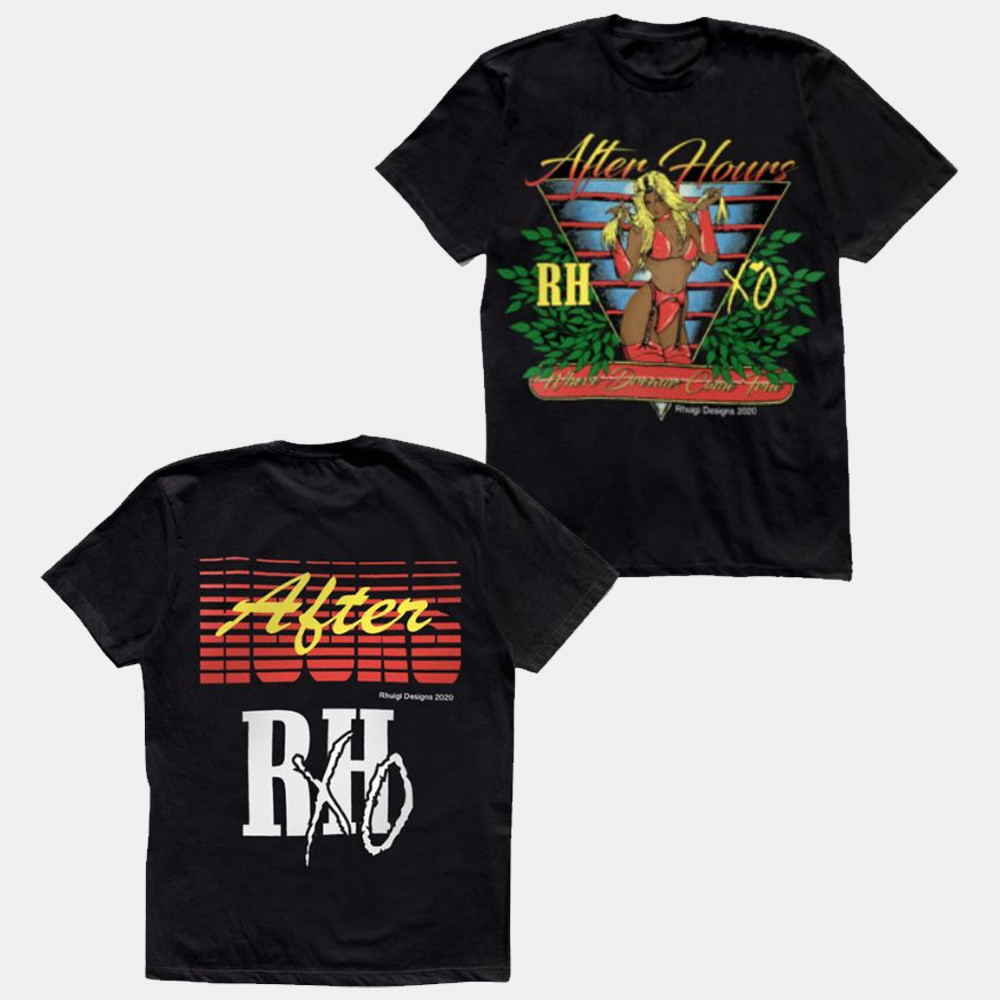
The Weeknd After Hours Til Dawn Tour Merch Shirt The Weeknd X Rhuigi Official merchandise designs for the weeknd's global stadium tour, "after hours till dawn.". Hurry up tomorrow is the sixth studio album by the weeknd, released on january 31, 2025. it is the final installment of a trilogy following his previous two studio albums, after hours (2020) and dawn fm (2022). the sans serif used for the album title is similar to impact or opti ignite. Collection of fonts for after hours. The weeknd access (@weekndaccess). 6 replies. 'after hours til dawn' tour typography evolution. The back cover of after hours features the track list in abel roman, a custom typeface by designer aleksi tammi for the weeknd. unfortunately, the font is not available for public use, but gilar studio's goordy regular is a recommended alternative with a similar aesthetic.
The Weeknd After Hours Til Dawn Tour Merchandise Fonts In Use Collection of fonts for after hours. The weeknd access (@weekndaccess). 6 replies. 'after hours til dawn' tour typography evolution. The back cover of after hours features the track list in abel roman, a custom typeface by designer aleksi tammi for the weeknd. unfortunately, the font is not available for public use, but gilar studio's goordy regular is a recommended alternative with a similar aesthetic.